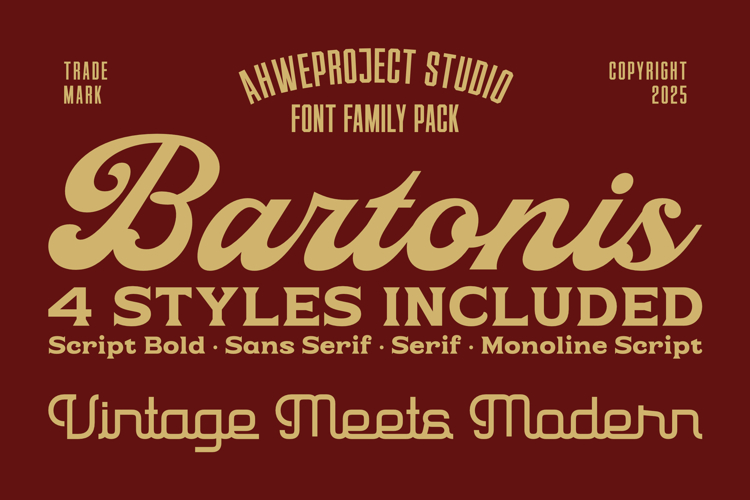
Bartonis
Bartonis is a vintage font family pack that blends classic charm with a clean modern touch. Bold, smooth letterforms and elegant curves make this typeface perfect for designs that need to feel nostalgic, stylish, and memorable at the same time.
In one download you get 4 matching styles: Script Bold, Sans Serif, Serif, and Monoline Script. You can easily mix them in one project—use the bold script for the main logo, the serif for taglines, the sans serif for supporting text, and the monoline script for subtle accents. This creates a strong, cohesive brand look without searching for extra fonts.
- Logos and branding for coffee shops, bars, barbershops, and boutique stores
- Vintage labels, packaging, badges, and product tags
- Posters, signage, merchandise, T-shirt designs, and editorial layouts
- Social media graphics and quote designs with a retro yet modern feel
If you need a versatile retro font family that instantly adds character and personality to your work, Bartonis is ready to bring your designs to life.